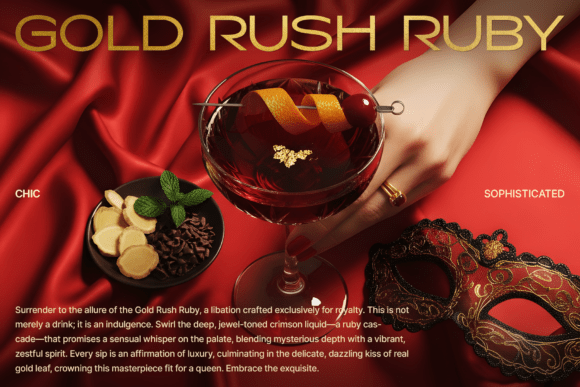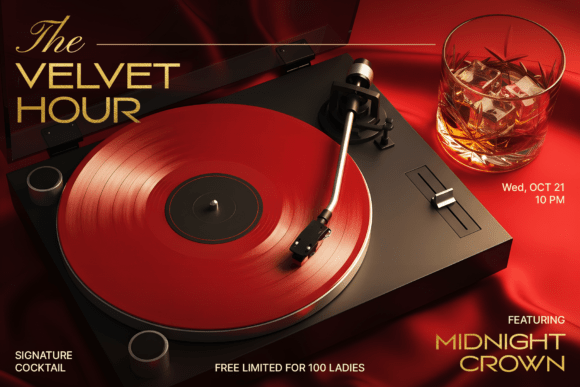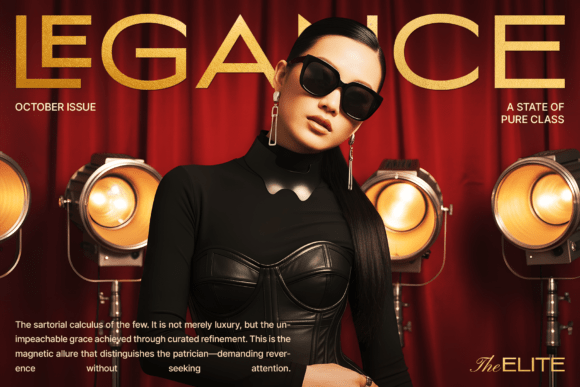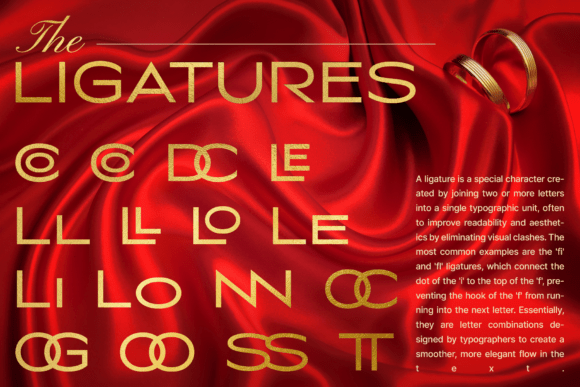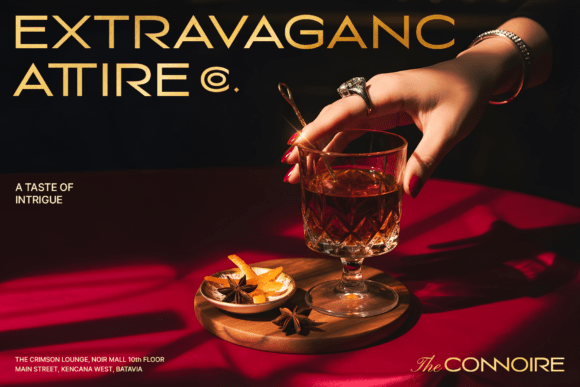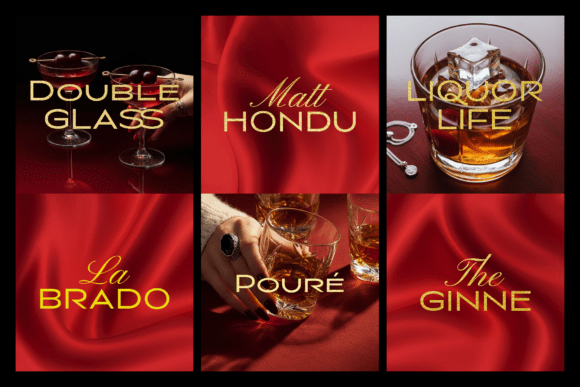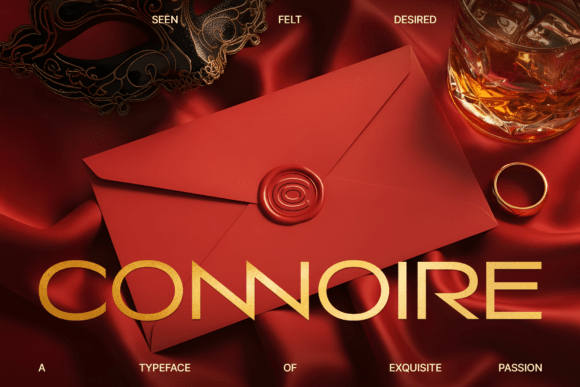
Introducing Connoire Font: The Epitome of Luxury and Sophistication
In the world of typography, few fonts have managed to capture the essence of luxury, passion, and high-class mystique as effectively as Connoire. This stunning typeface is more than just a means of displaying text; it’s an experience, a statement, and a lifestyle. Designed for those who appreciate the finer things in life, Connoire is the perfect blend of contemporary classic design and bold, refined aesthetics.
The Inspiration Behind Connoire
Connoire is inspired by the sophisticated ambiance of a secluded lounge, where the soft glow of dim lighting and the smooth pour of whiskey create an atmosphere of exclusivity and refinement. This font is the visual equivalent of that experience, evoking feelings of sensuality, luxury, and desire. Its design is a masterful blend of clean lines, evocative curves, and meticulous craftsmanship, making it the perfect choice for brands that want to convey a sense of effortless elegance.
A Font that Embodies a Lifestyle
Connoire is more than just a font; it’s a statement. It’s a declaration of sophistication, a badge of honor for those who appreciate the finer things in life. This typeface is designed to make your brand not just seen, but felt and desired. With Connoire, you can elevate your brand’s visual identity to new heights, conveying a sense of luxury, passion, and exclusivity that’s sure to leave a lasting impression.
Design Features of Connoire
Connoire’s design is characterized by its bold, refined aesthetic, which is both contemporary and classic. Its clean lines and evocative curves are meticulously crafted to create a sense of effortless elegance, making it perfect for brands that want to convey a sense of sophistication and luxury. Some of the key design features of Connoire include:
- Clean Lines: Connoire’s clean lines are a hallmark of its design, creating a sense of simplicity and elegance that’s perfect for luxury brands.
- Evocative Curves: The font’s evocative curves add a touch of sensuality and sophistication, making it perfect for brands that want to convey a sense of desire and exclusivity.
- Contemporary-Classic Design: Connoire’s design is both contemporary and classic, making it perfect for brands that want to convey a sense of tradition and innovation.
Who is Connoire for?
Connoire is perfect for designers, crafters, and brands that want to convey a sense of luxury, passion, and exclusivity. Whether you’re working on a high-end fashion brand, a luxury lifestyle magazine, or a bespoke jewelry company, Connoire is the perfect choice. This font is designed to help you create visually stunning content that’s sure to leave a lasting impression on your audience.
Using Connoire in Your Design Projects
Using Connoire in your design projects is easy. Here are a few tips to get you started:
- Pair it with neutral colors: Connoire looks stunning when paired with neutral colors like black, white, and gray. Try pairing it with a bold color to create a striking contrast.
- Use it for headlines: Connoire is perfect for headlines, where its bold, refined aesthetic can really shine.
- Experiment with different sizes: Connoire looks great in a variety of sizes, from large headlines to smaller body text.
In conclusion, Connoire is a truly exceptional font that’s perfect for designers, crafters, and brands that want to convey a sense of luxury, passion, and exclusivity. With its bold, refined aesthetic and contemporary-classic design, Connoire is sure to elevate your brand’s visual identity to new heights. Whether you’re working on a high-end fashion brand or a bespoke jewelry company, Connoire is the perfect choice. So why wait? Download Connoire today and experience the power of luxury typography for yourself.